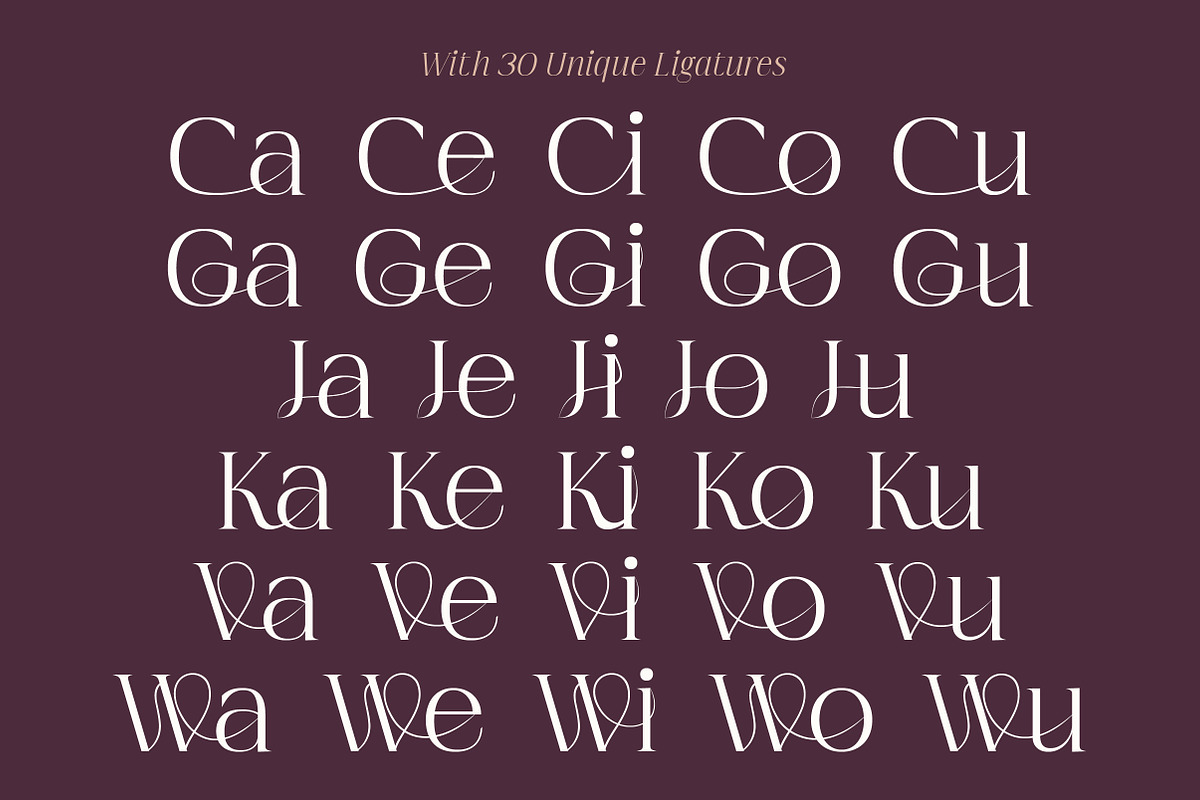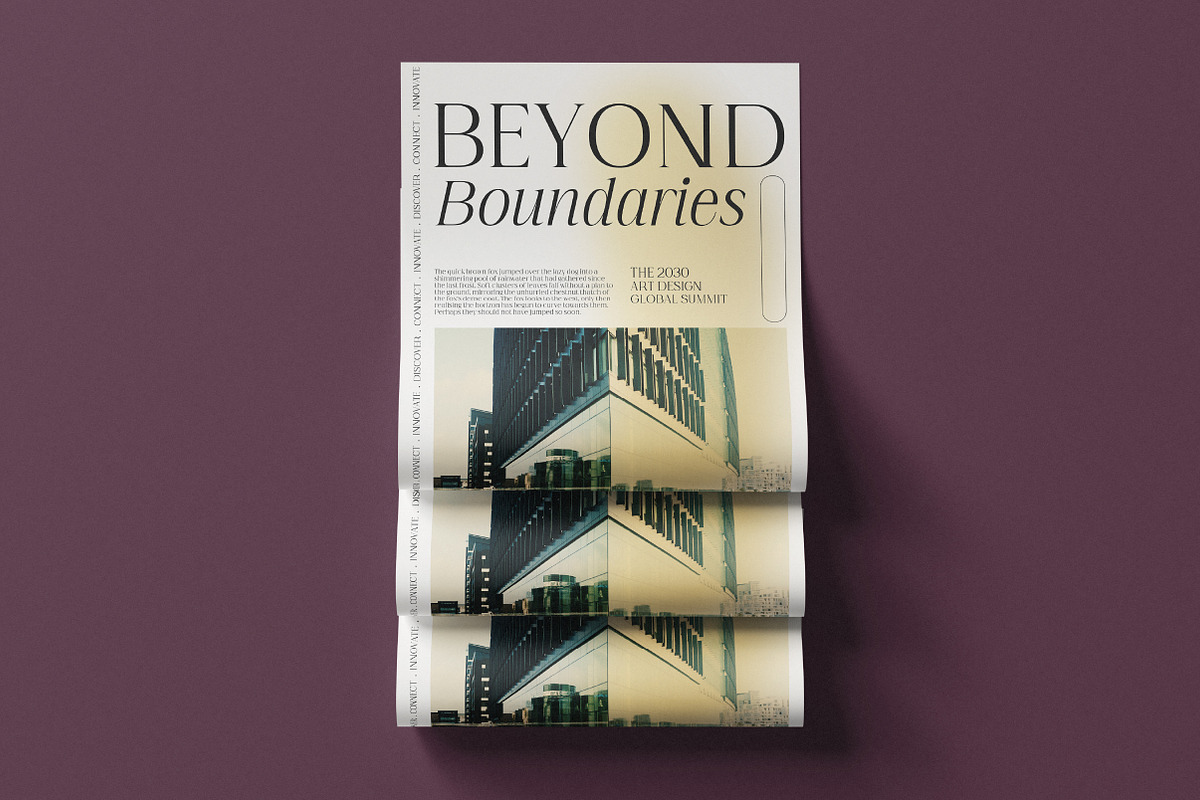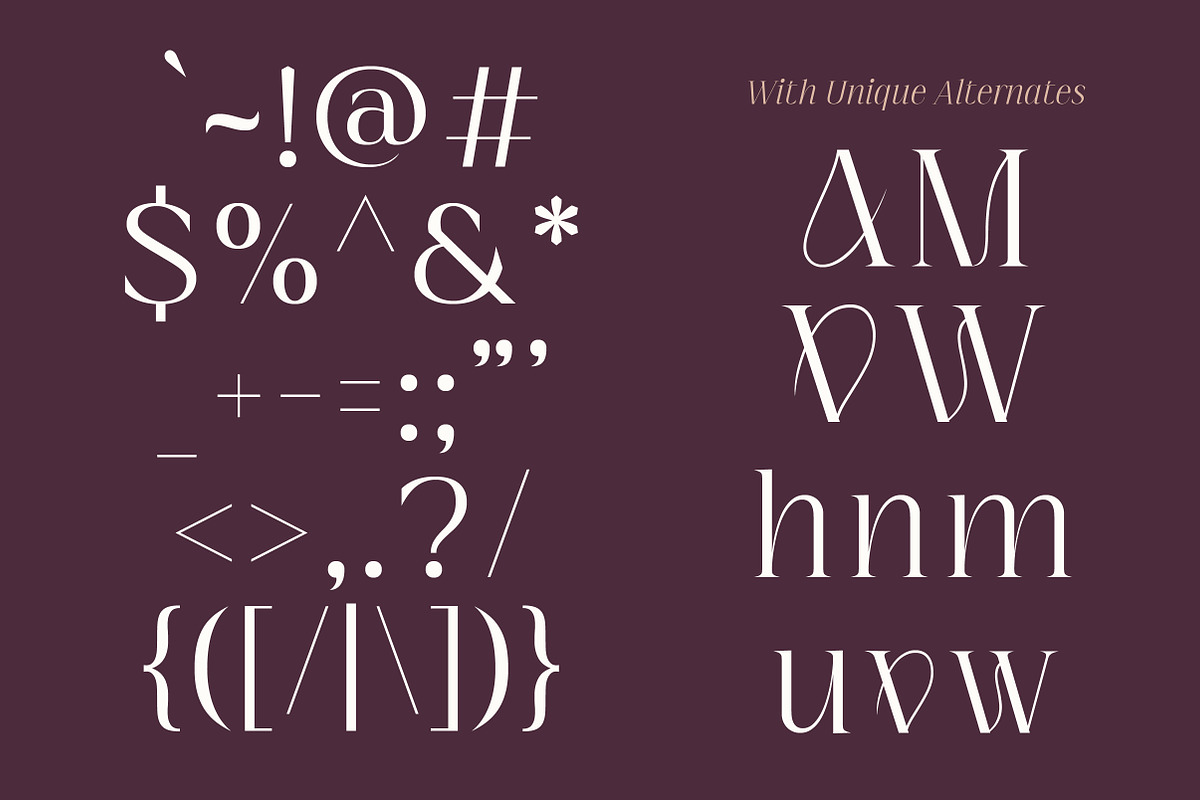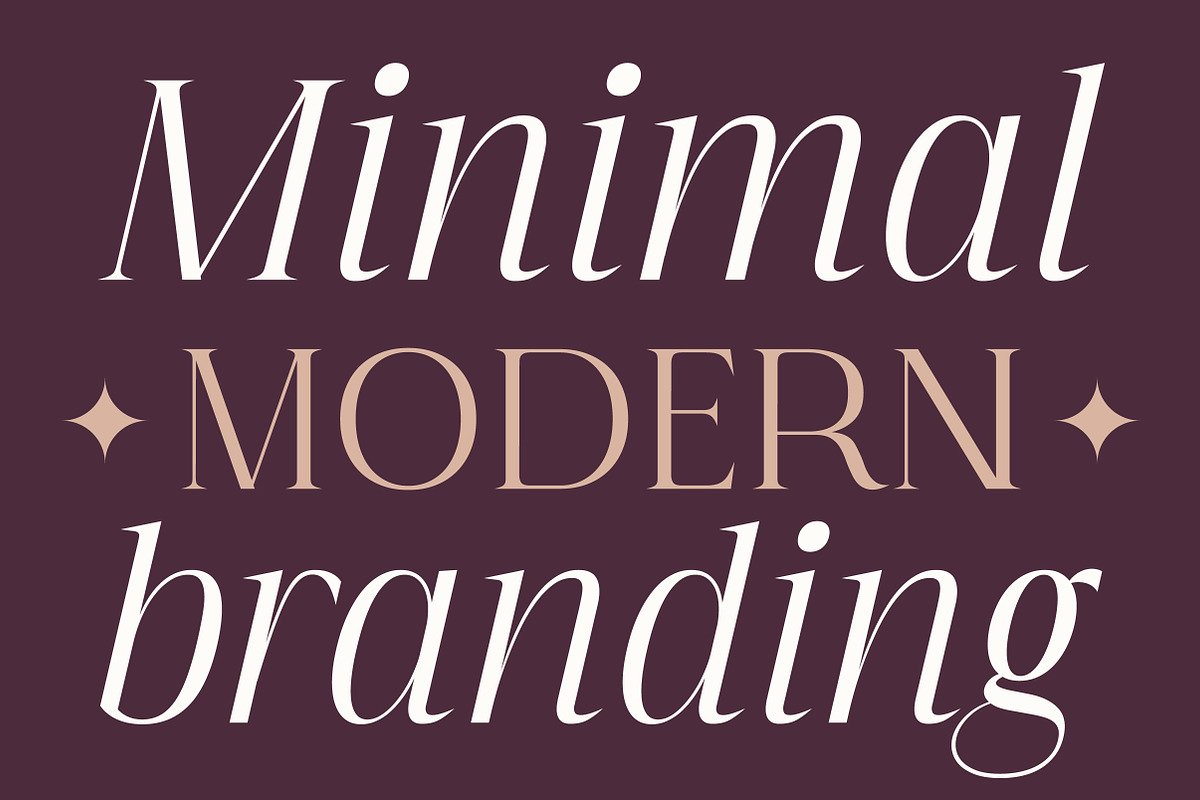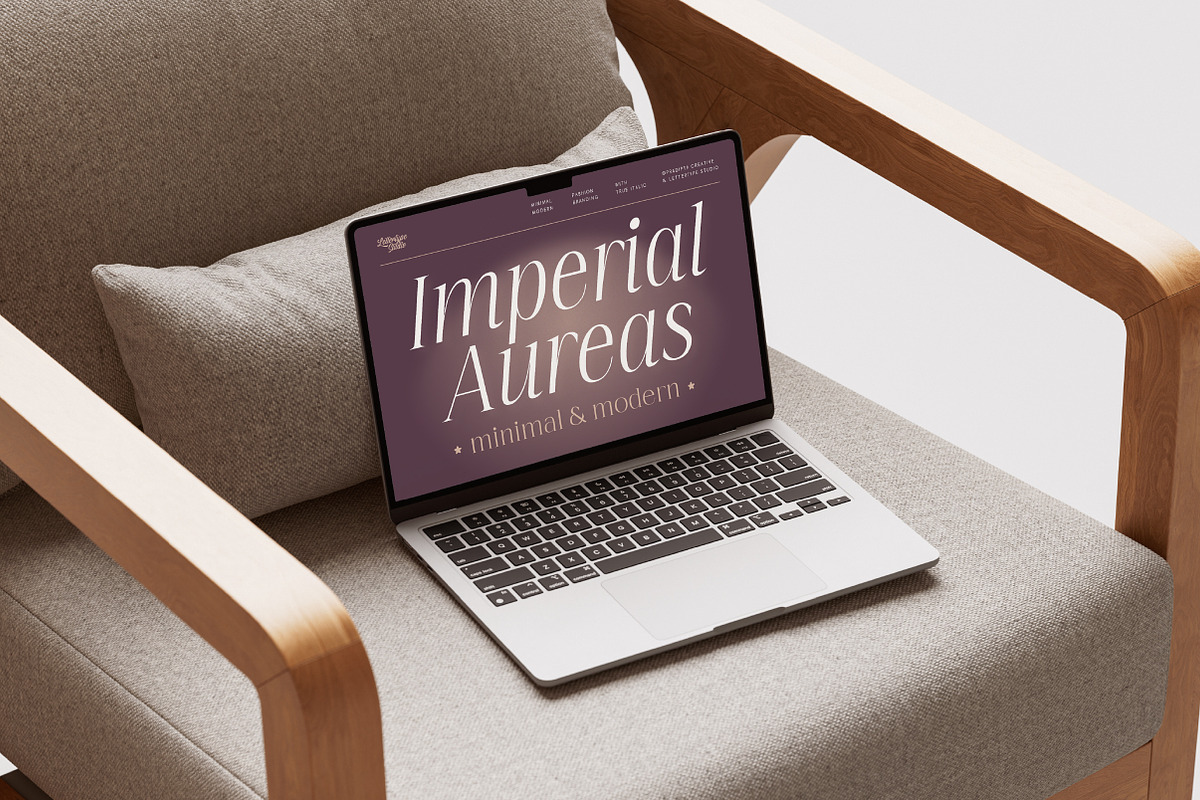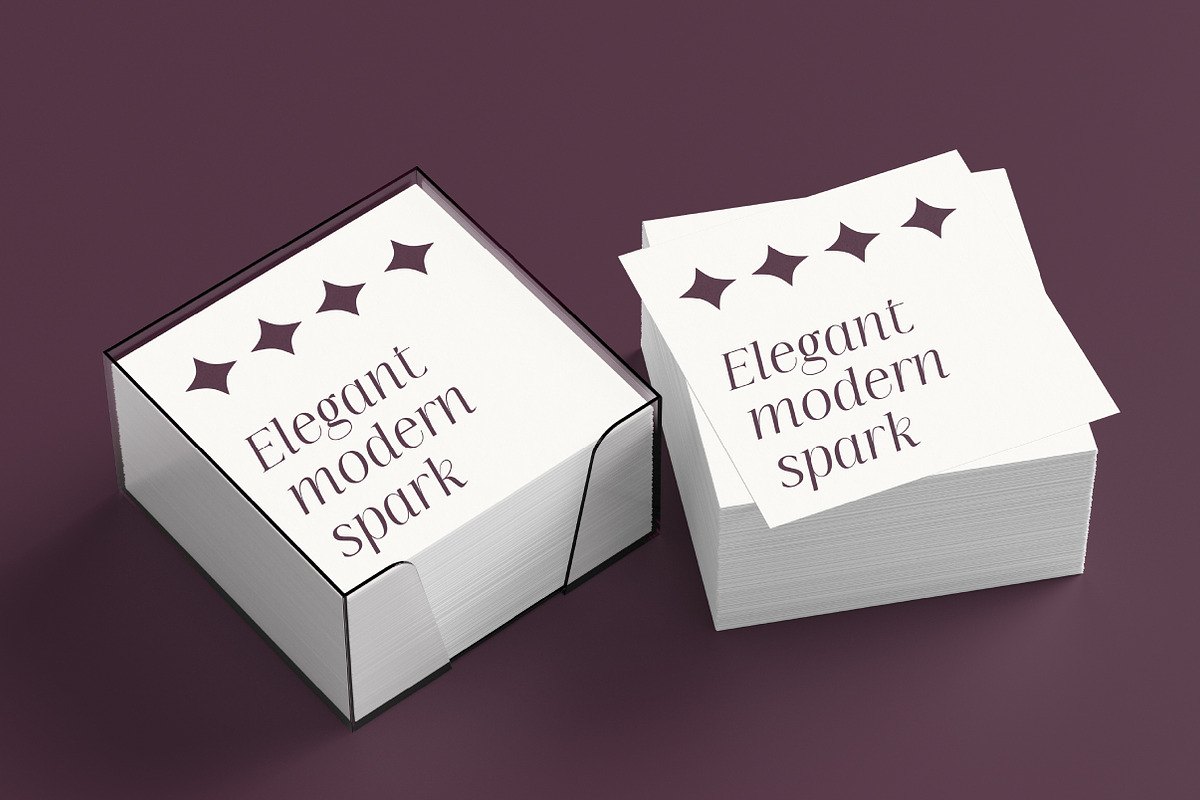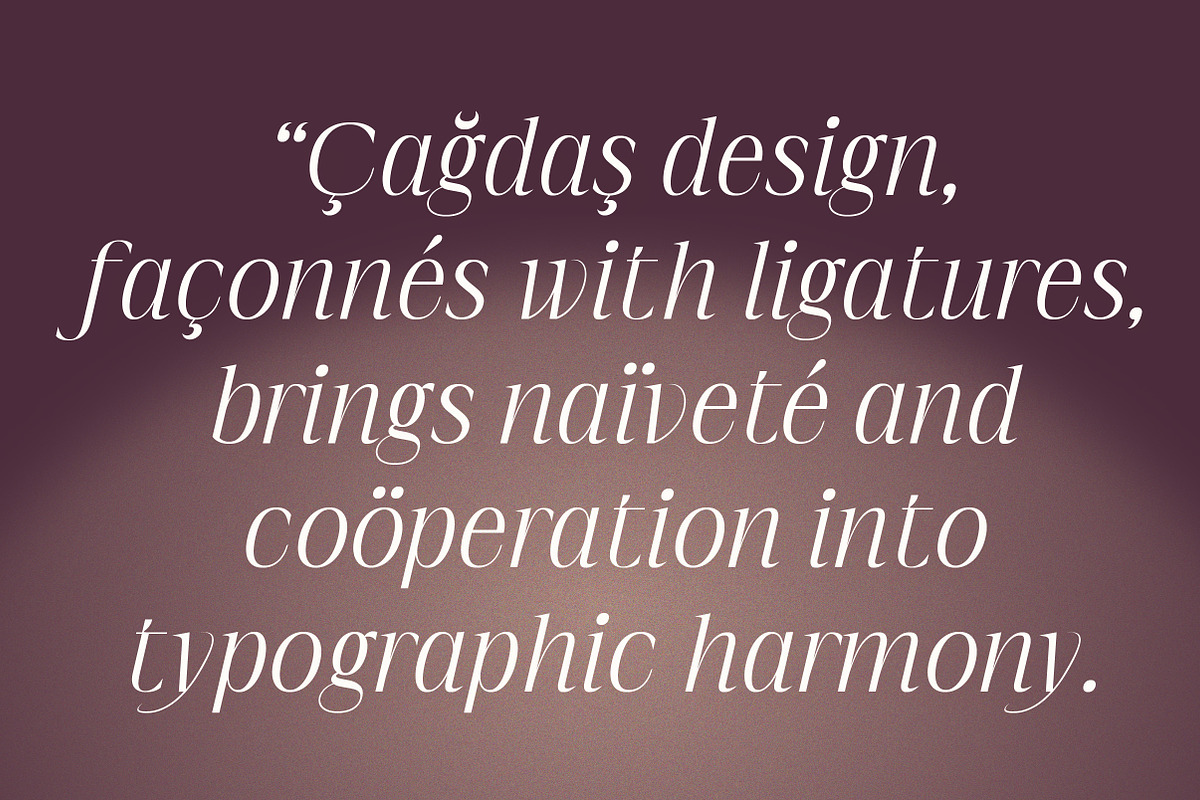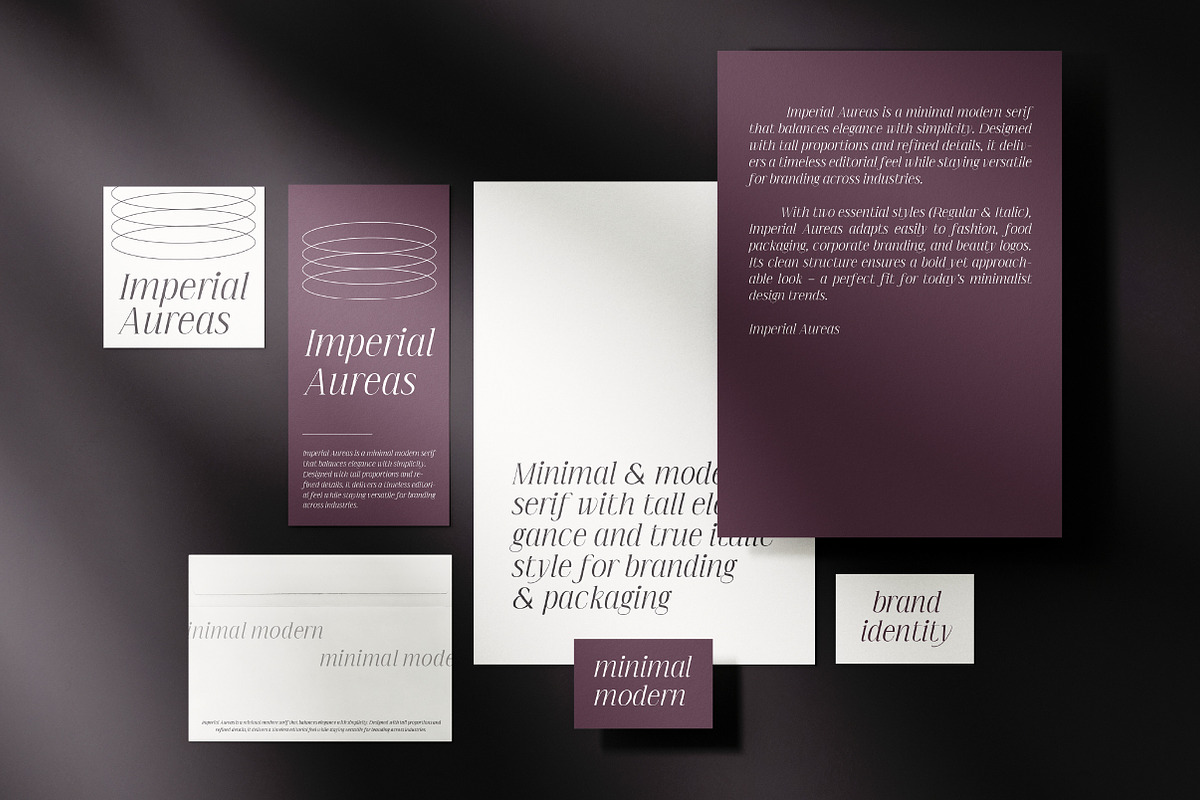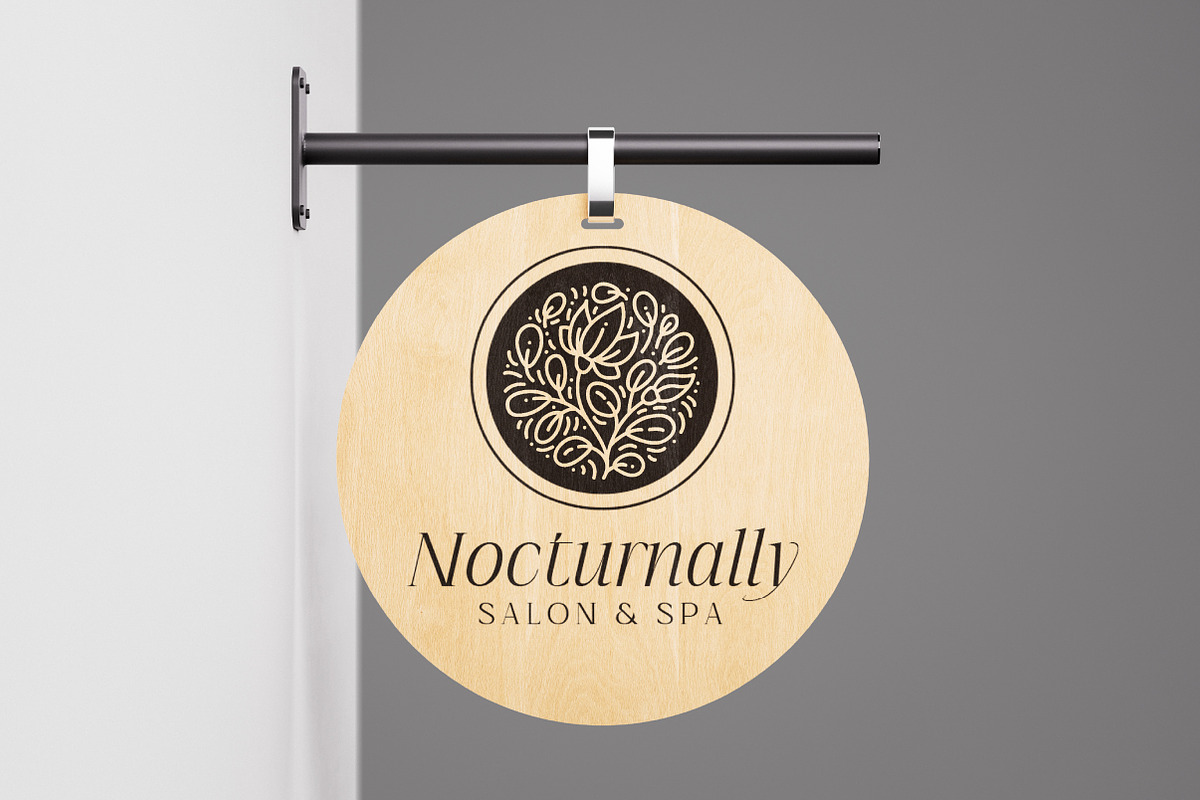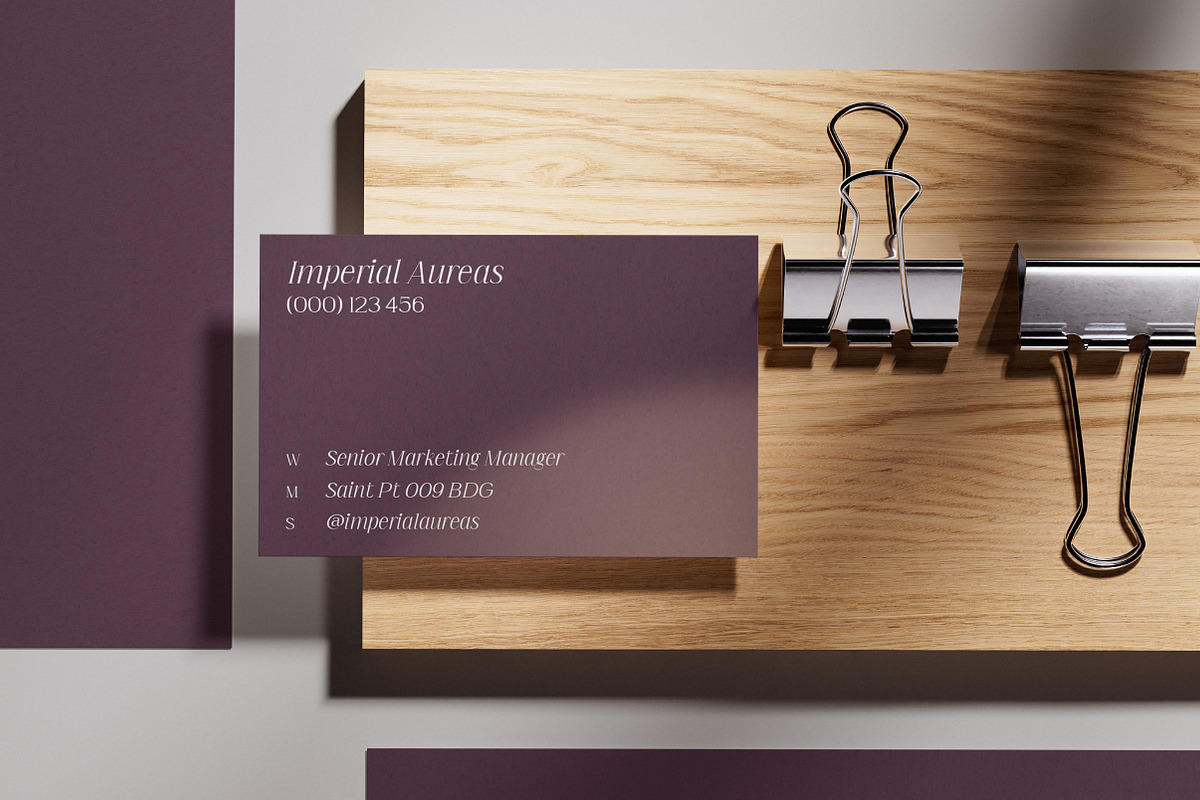
Imperial Aureas a Minimal Serif
Imperial Aureas is a minimal modern serif that balances elegance with simplicity. Designed with tall proportions and refined details, it delivers a timeless editorial feel while staying versatile for branding across industries.
With two essential styles (Regular & Italic), Imperial Aureas adapts easily to fashion, food packaging, corporate branding, and beauty logos. Its clean structure ensures a bold yet approachable look — a perfect fit for today’s minimalist design trends.
Imperial Aureas Features:
- 2 Styles
- Regular & True Italic
- 10 Alternates & 30 Unique Ligatures
- 490 Glyphs Total
- 260+ Languages Support
- Luxury branding & boutique packaging
- Fashion & beauty editorial layouts
- Logo wordmarks & elegant monograms
- Magazine covers & poster headlines
- Website hero titles & social visuals